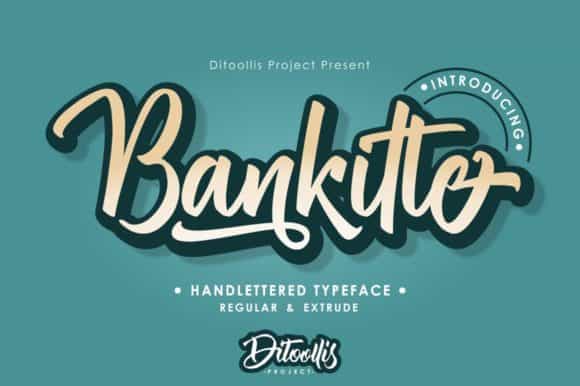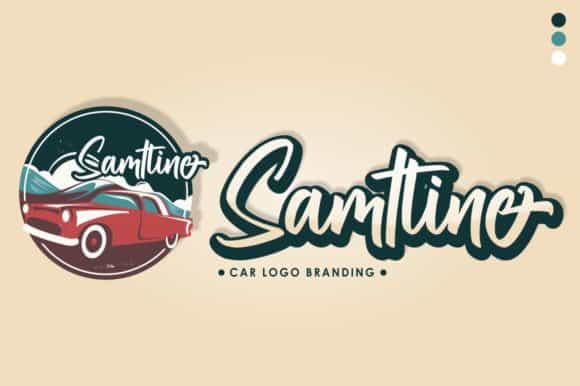
Introducing Bankitte Font. It is design and shared by Ditoollis Project. It is cute and lively script font which is perfect for invitations, logos, business cards, covers, on T-shirts, for quotes and many other purposes.